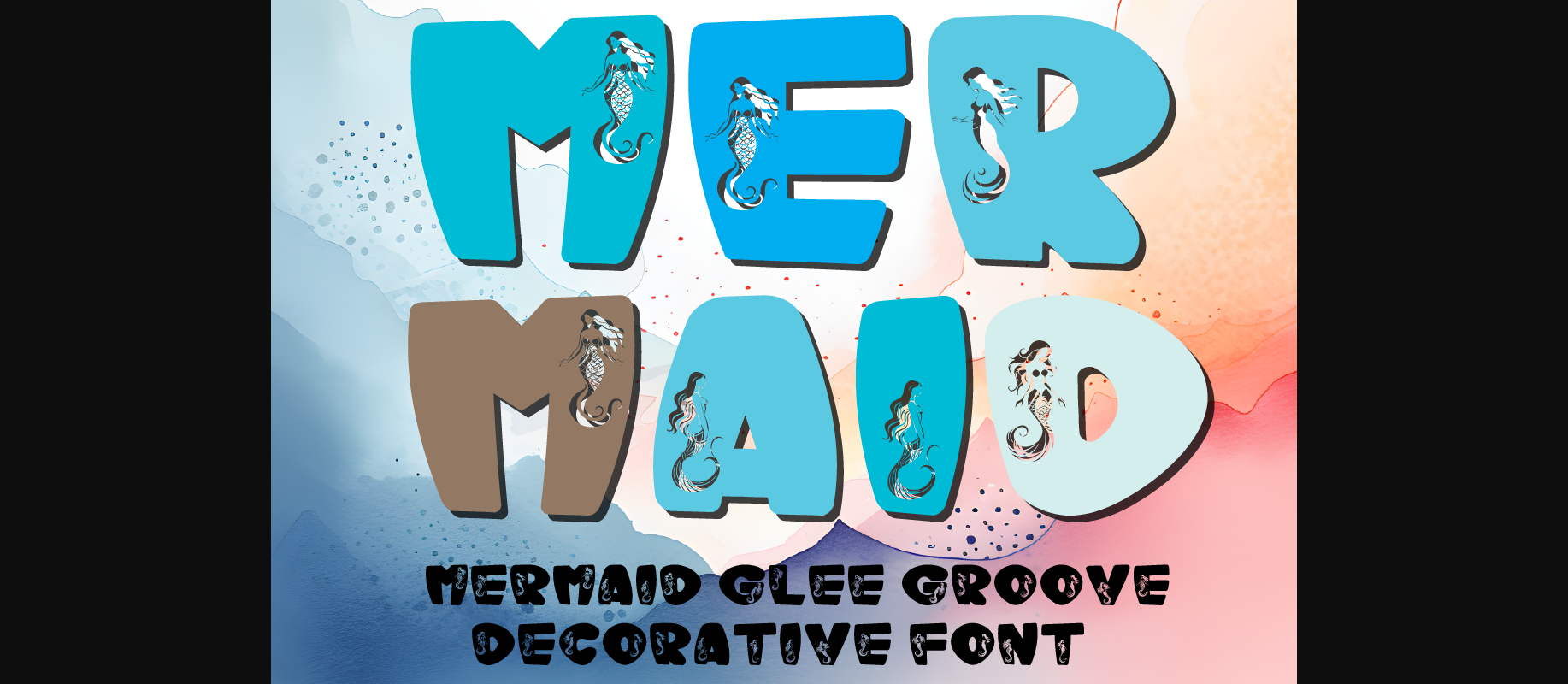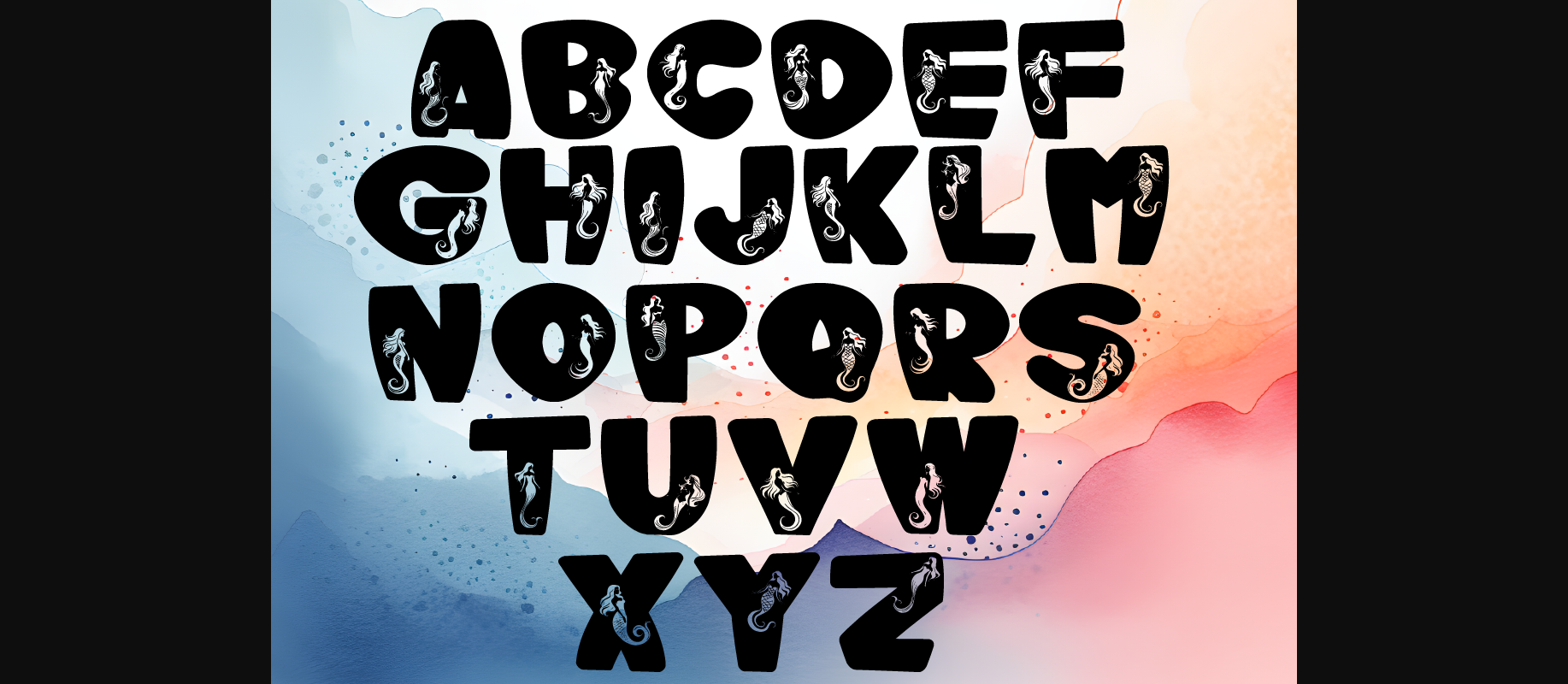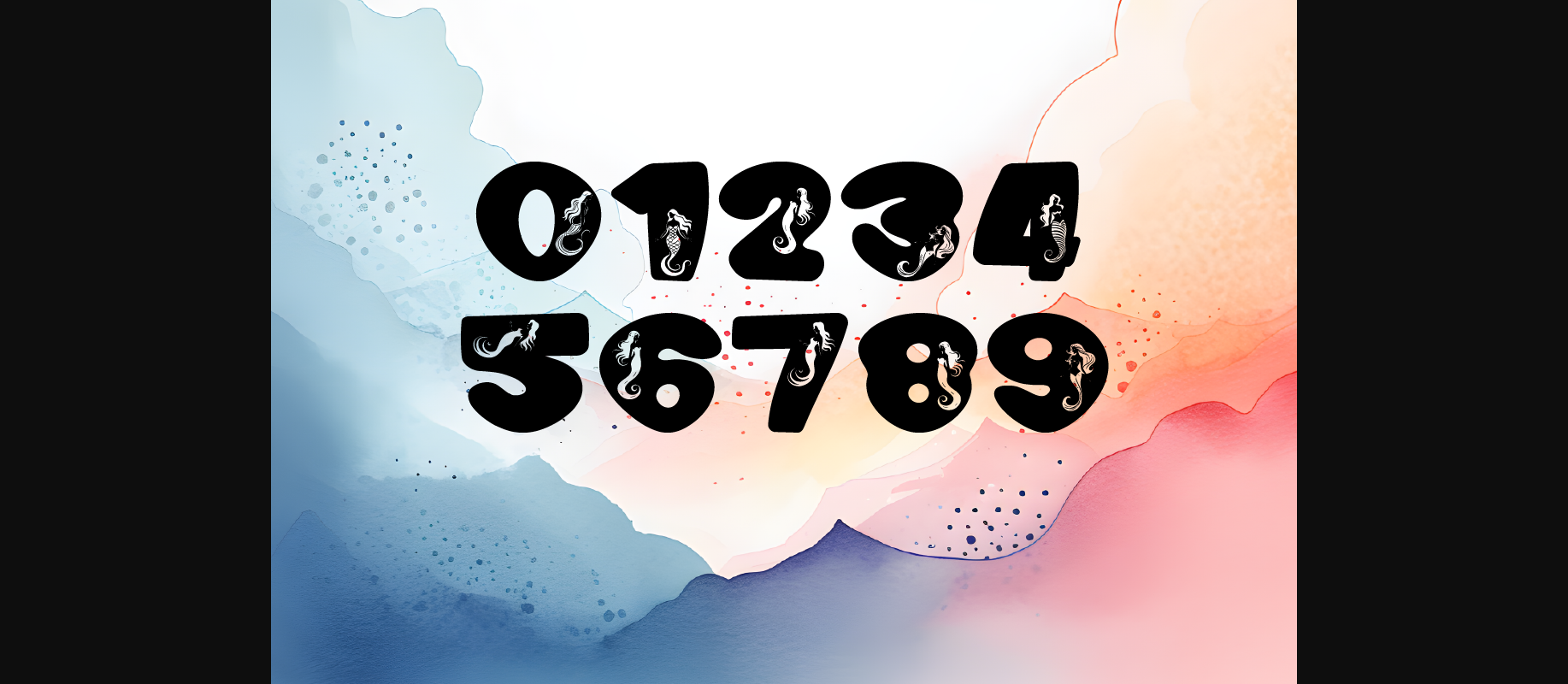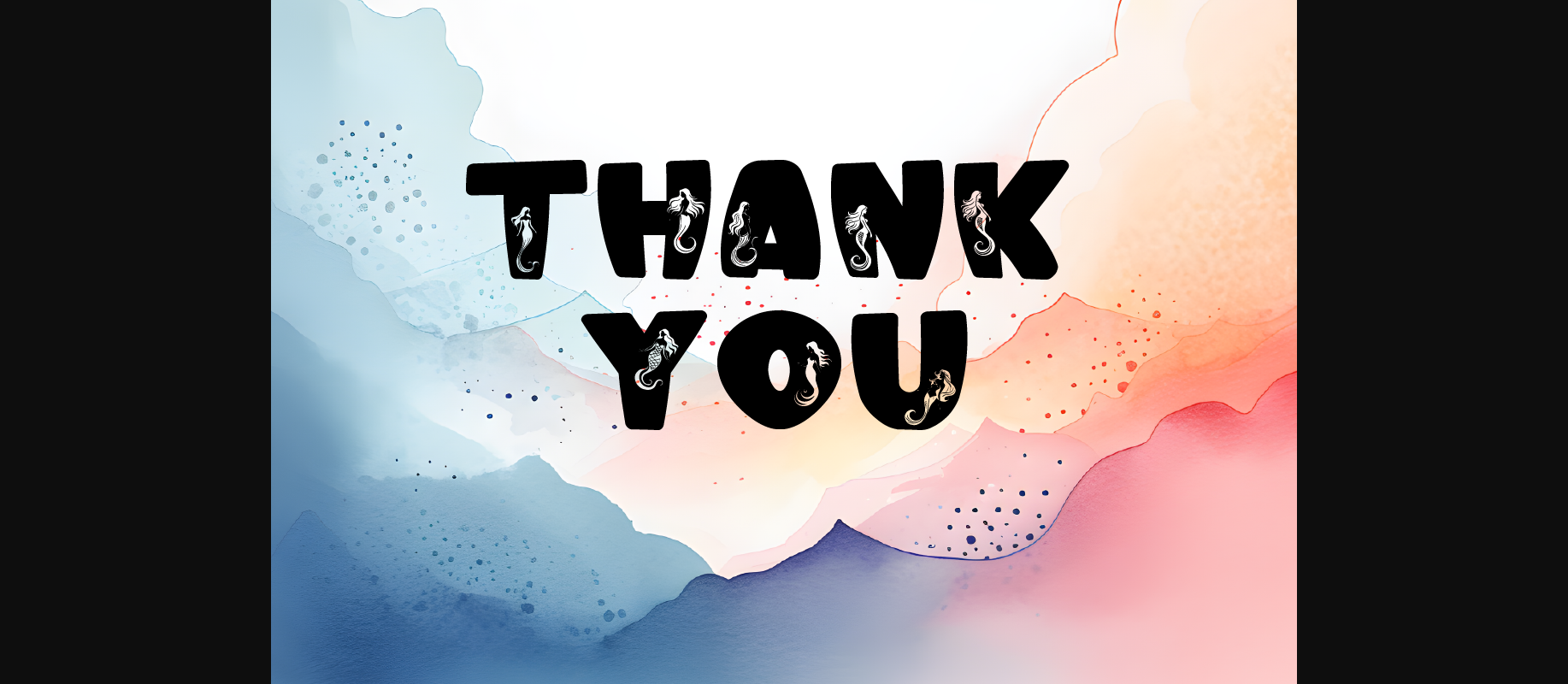
Mermaid Glee Groove Font
About Mermaid Glee Groove Font
Dive into the enchanting depths of creativity with Mermaid Glee Groove decorative font. Each letter is adorned with the whimsical charm of mermaids, bringing a touch of aquatic magic to your projects. With 26 capital letters and 10 numbers, this font set offers versatility for various applications.
Whether you’re designing invitations, posters, or digital artwork, these fonts add a unique flair to every piece. Embrace the allure of the ocean and infuse your projects with the mystique of mermaids.